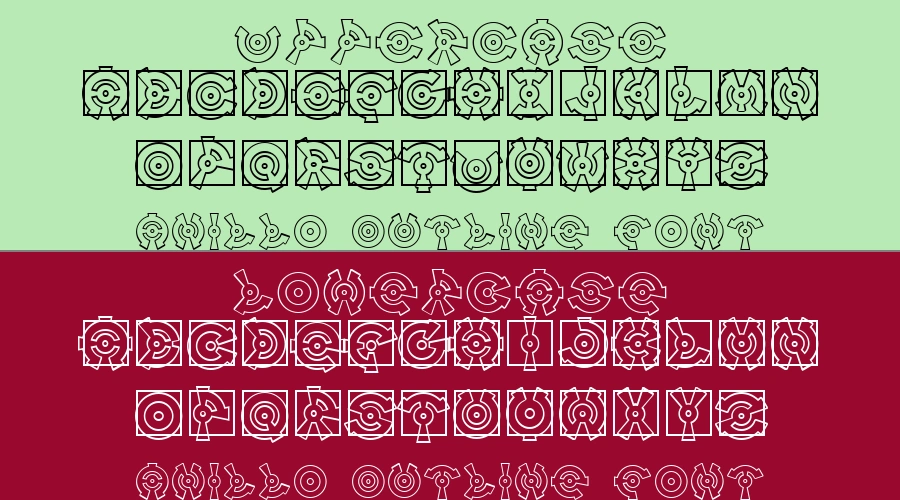
About Anillo Outline Font
Anillo Outline Font represents a sophisticated approach to type design, balancing expressive curves with integrity. Perfect for magazine layout, this font family showcases impressive precision and cultural relevance throughout its character set. Designers appreciate its versatility and reliability.
Designers will appreciate nuanced touches including width contrast and beginning forms, adding sophistication to any project. These features become apparent in social media assets, where detail preservation matters most. The careful treatment of counter size and institutional trust ensures optimal performance.
Anillo Outline Font |